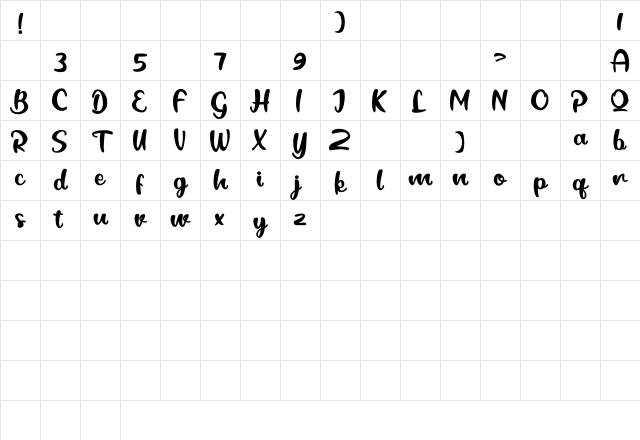
Complete BlackCatty Regular glyph index. Displaying only characters natively supported by BlackCatty Regular font.
BlackCatty is a composed and adaptable typeface that performs quietly and consistently across a wide range of design contexts.